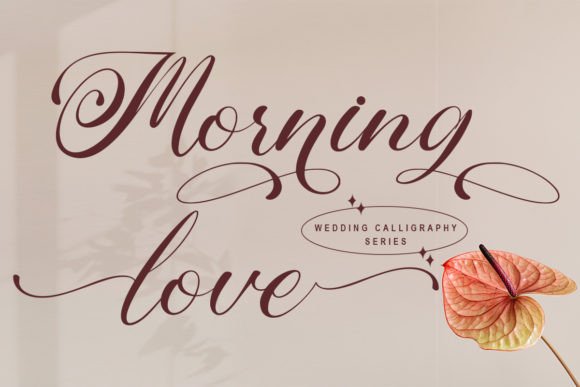
Behold, the irresistible charm of Morning Love Font, an exceptional script font that embodies grace and elegance like no other. Each stroke and curve is meticulously crafted to exude a sense of sophistication, making it the perfect choice for those seeking to elevate their creative projects with a touch of luxury.
Imagine the beauty of your wedding invitations, adorned with the flowing lines of Morning Love, capturing the essence of romance and commitment. Its delicate details and understated elegance will create a lasting impression on your guests, leaving them in awe of your discerning taste.
With Morning Love, your high-end branding will radiate exclusivity and refinement. Its timeless beauty will elevate your designs, captivating your audience with its sheer elegance. Your clients will recognize the attention to detail and appreciate the effort you put into creating a truly remarkable brand identity.
If you're a Cricut enthusiast, Morning Love Font is your perfect partner. Its compatibility with Cricut Pens makes it easy to bring your creative visions to life. With Morning Love, you can create stunning decals, cards, and home décor that will add a touch of sophistication to your living spaces.
The PUA encoding of this font makes it a breeze to access all its delightful glyphs and swashes. Unleash your creativity and explore the endless possibilities, experimenting with different combinations to create truly unique and captivating designs.